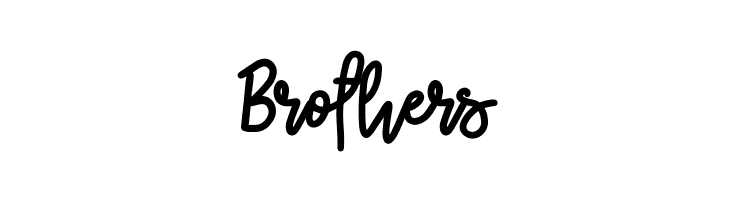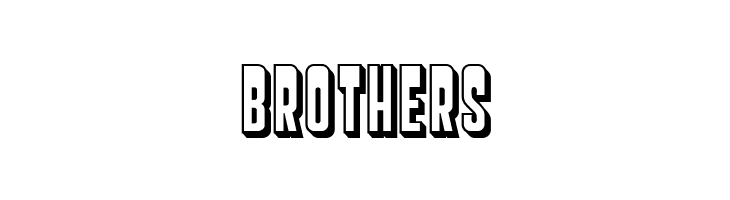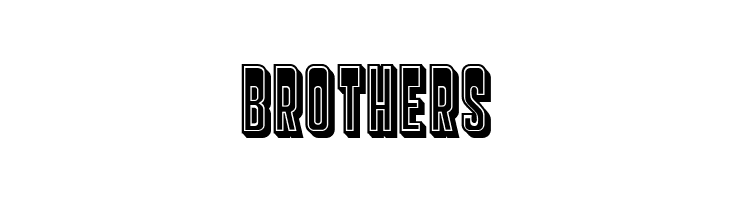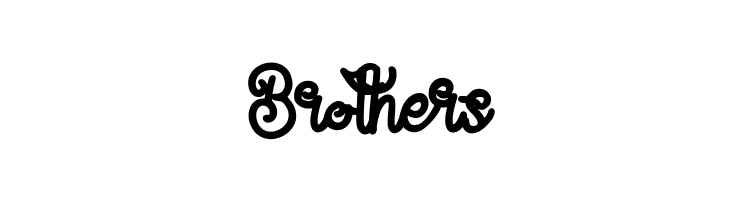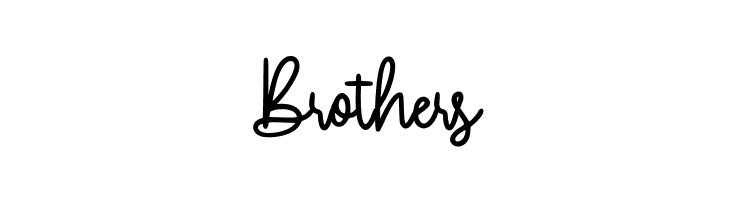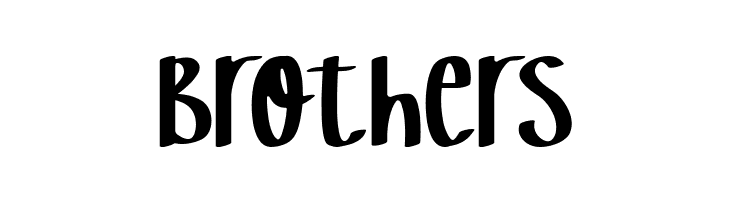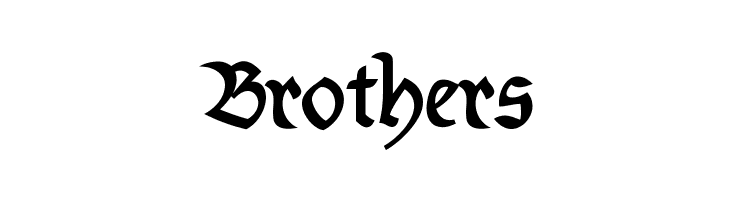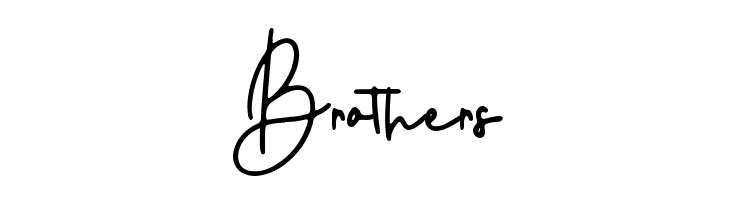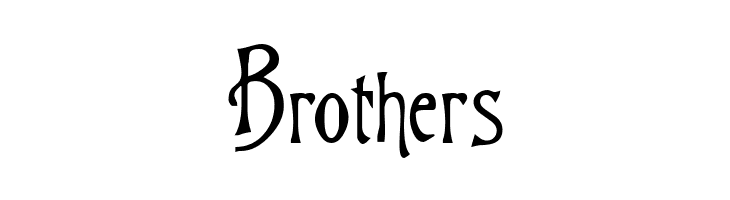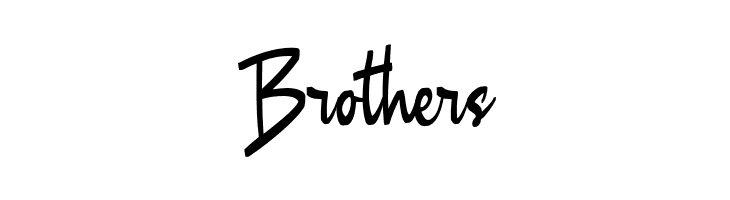
A playful and whimsical font with rounded, elongated characters and quirky symbols.
A bold, brush-style handwritten font with dynamic strokes.
A bold, rugged, hand-drawn style with uneven edges.
A bold, playful script with a hand-drawn, whimsical style.
A bold, medieval-inspired font with sharp, angular edges and dramatic serifs.
A whimsical and decorative serif font with playful curls and flourishes.
A bold, modern sans-serif font with a clean and geometric design.
A bold, modern font with thick, uniform strokes for high legibility.
An elegant script font with flowing, cursive letters and a classic appearance.
A tall, narrow, and modern geometric font with a sleek appearance.
A distressed, vintage-style font with a worn, gritty texture.
A bold, geometric font with a 3D shadow effect, ideal for striking headlines.
A bold, geometric font with a three-dimensional outline, ideal for impactful headlines.
A modern, geometric font with rounded edges and a futuristic style.
A playful and casual handwritten font with fluid strokes and a whimsical feel.
A dynamic and playful handwritten font with bold, expressive characters.
A whimsical, decorative font with bold, intricate loops and curls.
A bold, expressive script font with smooth curves and dynamic flow.
A playful, bold, and whimsical font with a hand-drawn feel.
A bold, playful font with rounded, hand-drawn letterforms.
A bold, playful script font with flowing, cursive letterforms.
A dynamic handwritten font with fluid, interconnected strokes.
A playful, hand-drawn font with rounded edges and a whimsical style.
A playful, handwritten font with smooth, flowing lines and rounded edges.
A bold, decorative font with a retro, psychedelic style.
A bold, decorative font with playful, rounded characters resembling abstract shapes.
A bold, playful font with a bubbly, rounded design.
A bold, italicized font with a playful, rounded style and thick strokes.